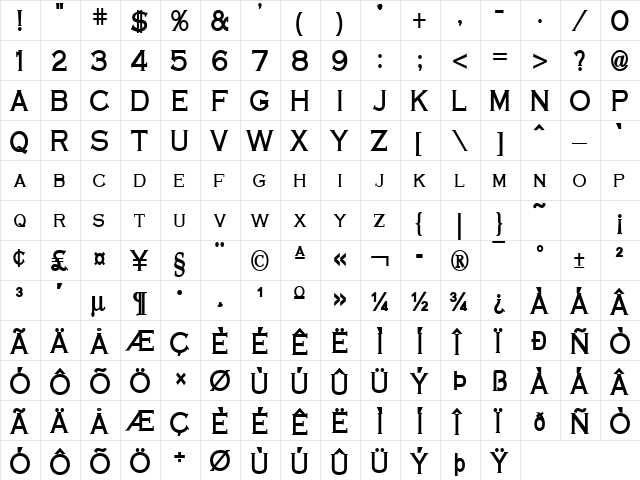
Cobalt-Condensed Bold
Design Context for Cobalt-Condensed Typeface
Cobalt-Condensed offers clean, dependable letterforms without strong stylistic allegiance, making it a practical choice for designers who need flexibility. The heavy weight commands attention and anchors typographic hierarchies. The condensed width makes it efficient for tight spaces without sacrificing legibility.
Pro Tip: Use Cobalt-Condensed in both headline and body roles to test its range before committing to a single application.